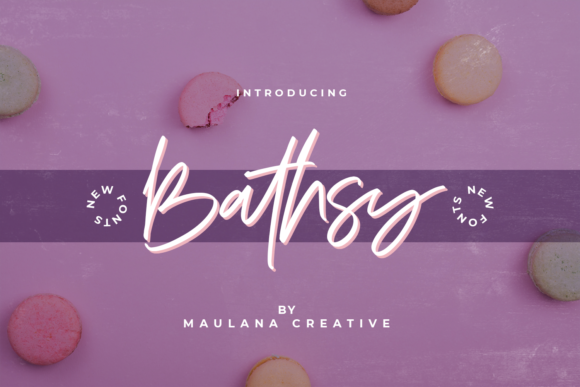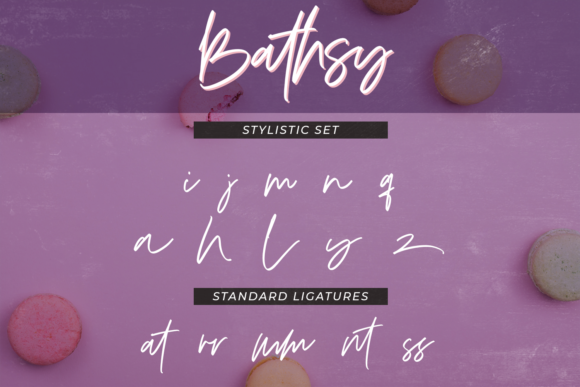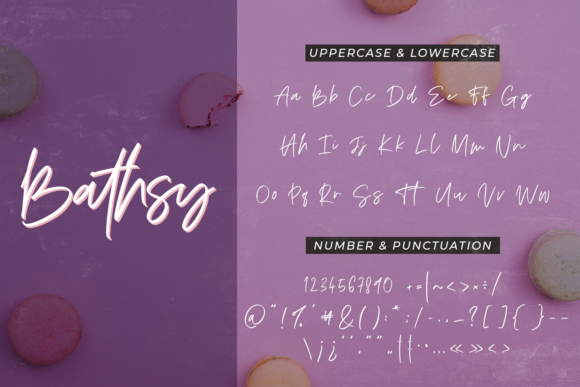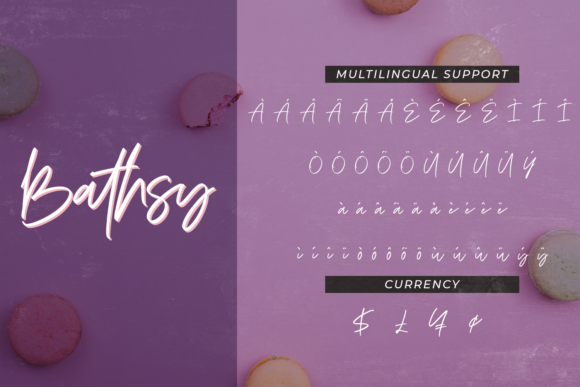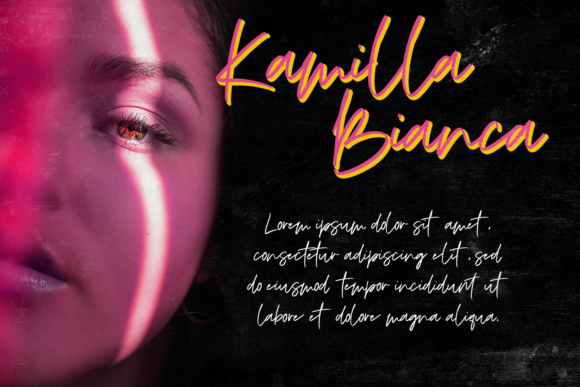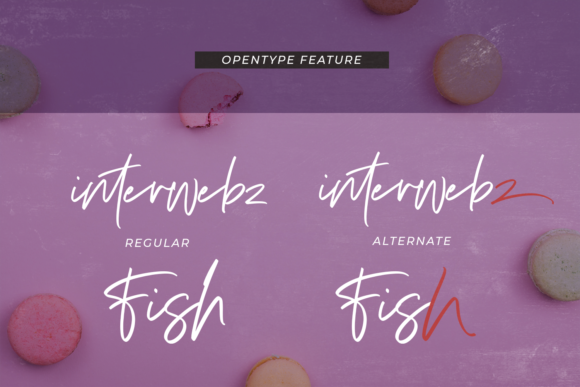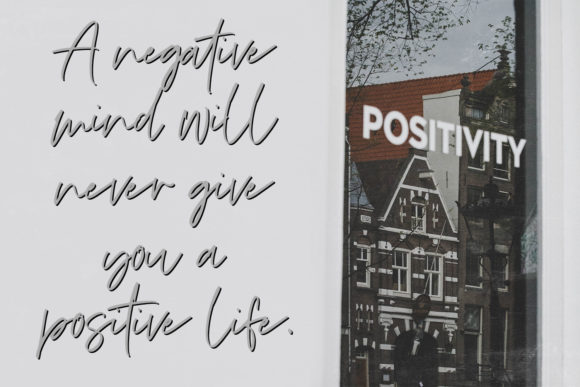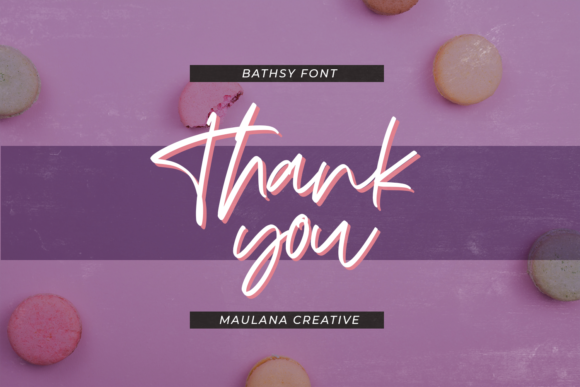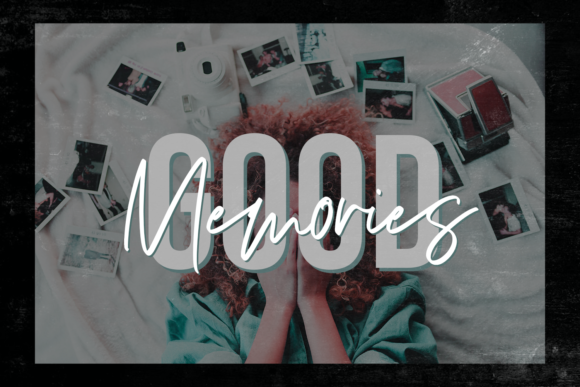
Bathsy Font
About Bathsy Font
Bathsy is a delightful and amiable handwritten font that brings a charming and authentic touch to any design. With its natural and distinctive style, this font is incredibly versatile and suitable for a wide range of creative projects. The possibilities are endless, limited only by your imagination!
Sweet and Friendly: Bathsy’s sweet and friendly demeanor makes it a perfect choice for designs that aim to evoke warmth, approachability, and a personal touch. Its handwritten nature adds a human element that resonates with audiences.
Authentic and Natural: Bathsy’s natural and organic strokes give it an authentic and genuine appearance, as if it were created by hand. This makes it an ideal font for projects that value authenticity and a handcrafted feel.
Versatility in Designs: The versatility of Bathsy allows it to complement a diverse array of designs. Whether you’re working on invitations, greeting cards, logos, social media graphics, posters, or any other project, Bathsy can adapt effortlessly.
Expressive and Unique: The unique style of Bathsy adds an expressive and individualistic flair to your designs. Its letterforms stand out with character and personality, making your creations distinctive and memorable.
Playful and Charming: Bathsy’s playfulness and charm make it a great fit for projects aimed at a younger audience or those that seek a more lighthearted and whimsical approach.
Greeting Cards and Invitations: Bathsy is a delightful choice for greeting cards and invitations, especially for occasions that call for a personal and heartfelt touch, such as birthdays, weddings, or special events.
Social Media Graphics: Create eye-catching and engaging social media graphics with Bathsy, as it can infuse your posts with a warm and friendly vibe that resonates with your audience.
Logos and Branding: Bathsy’s unique style makes it suitable for logos and branding, helping your brand stand out with a human touch and a touch of creativity.
Posters and Flyers: Design eye-catching posters and flyers with Bathsy to grab attention and create an impact. Its distinctive appearance can draw viewers in and convey your message effectively.
Children’s Projects: Bathsy’s playful and friendly nature makes it an excellent choice for children’s projects, such as book covers, illustrations, or educational materials.
Crafty DIY Projects: Use Bathsy in various crafty DIY projects, such as scrapbooking, journaling, or creating personalized gifts. Its handwritten look will add a personal and thoughtful touch.
In summary, Bathsy is a sweet and friendly handwritten font that brings authenticity, versatility, and a touch of charm to your designs. Its natural style, expressive letterforms, and adaptability make it suitable for a wide range of projects, from greeting cards and social media graphics to branding, children’s projects, and crafty DIY endeavors. With Bathsy, your designs can radiate warmth and authenticity, creating a lasting impression on your audience.